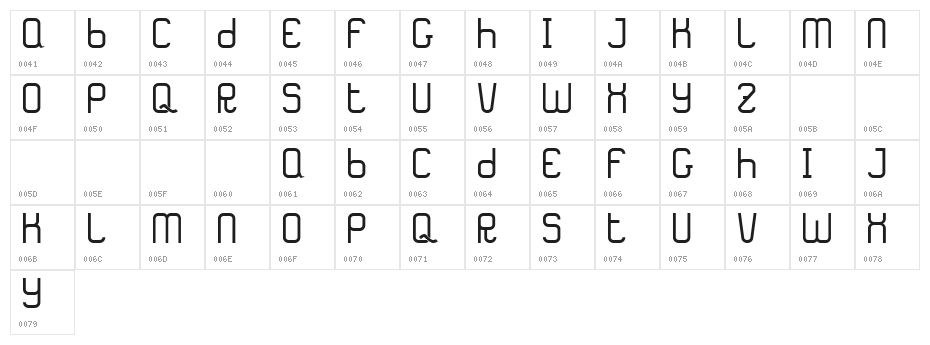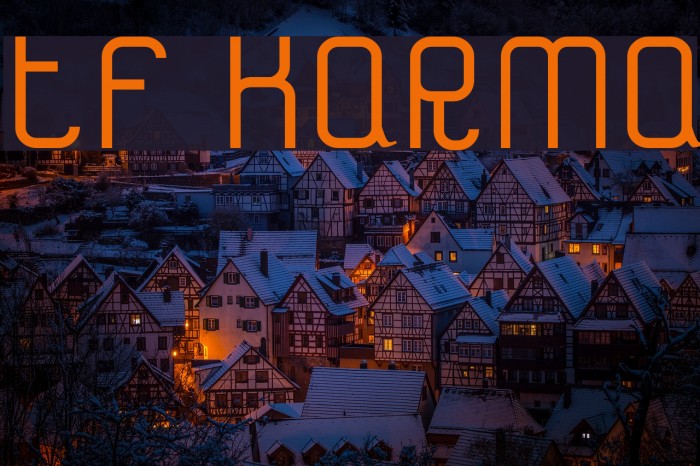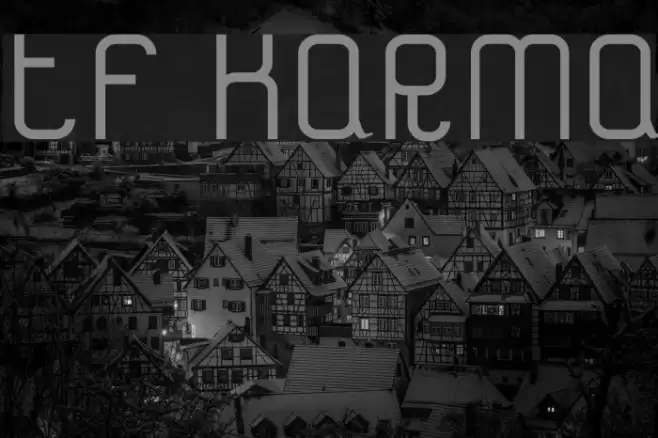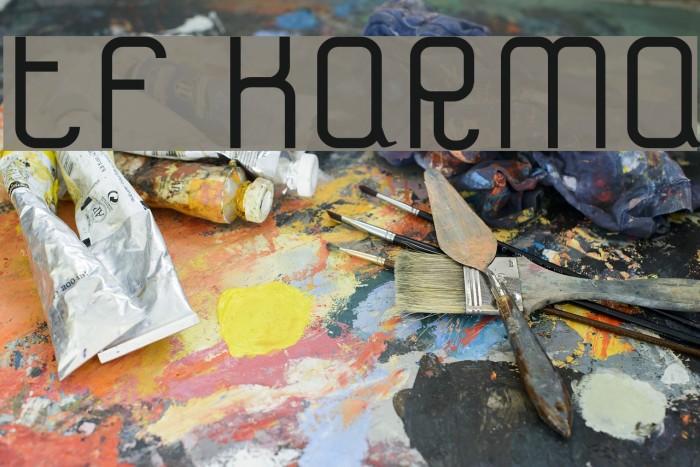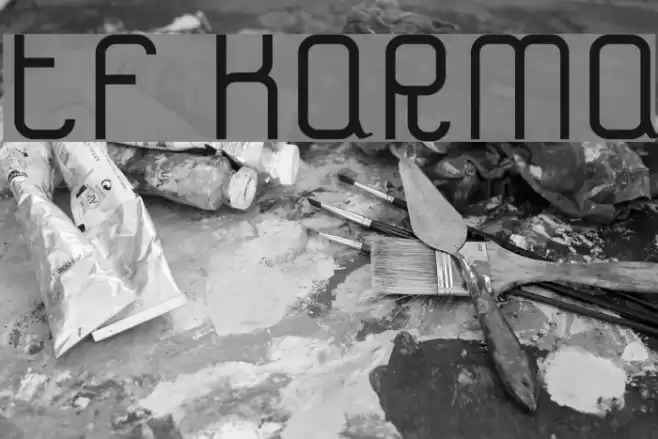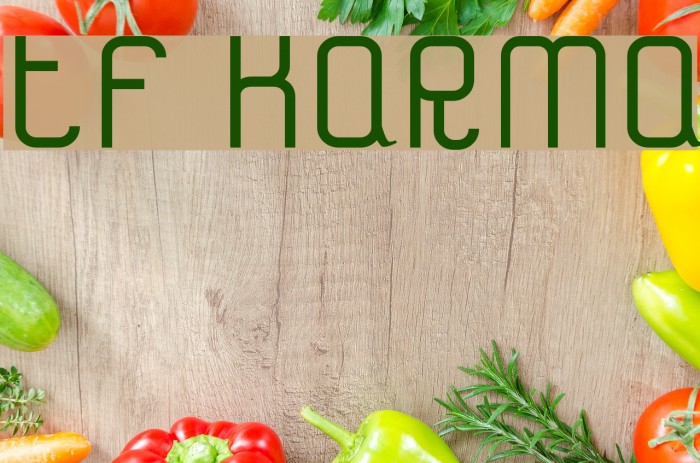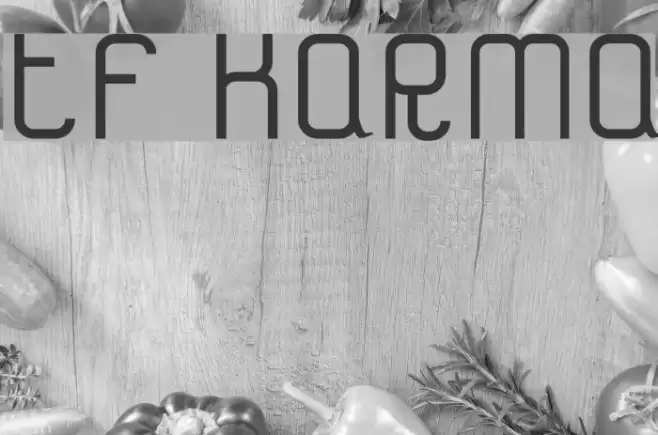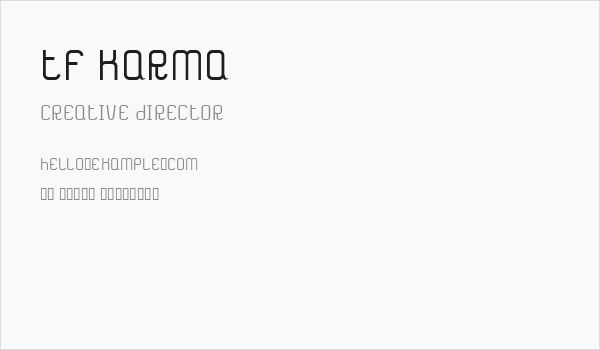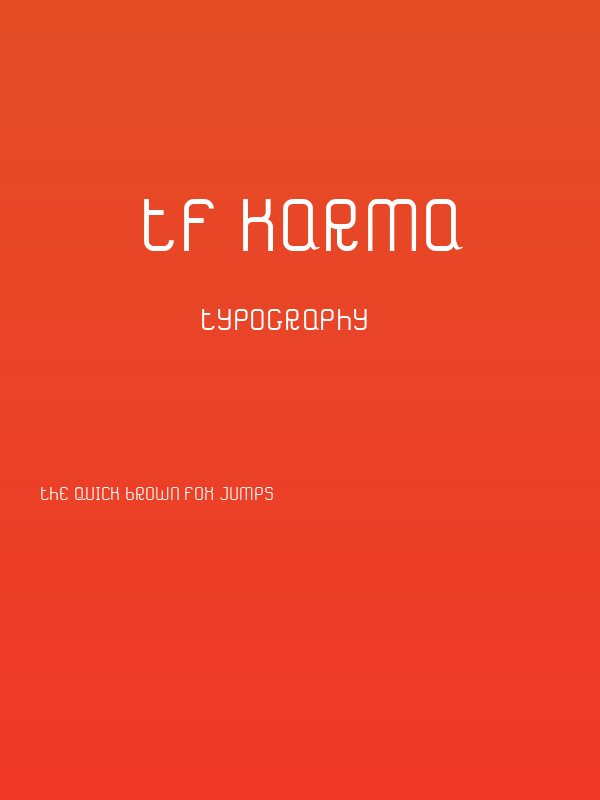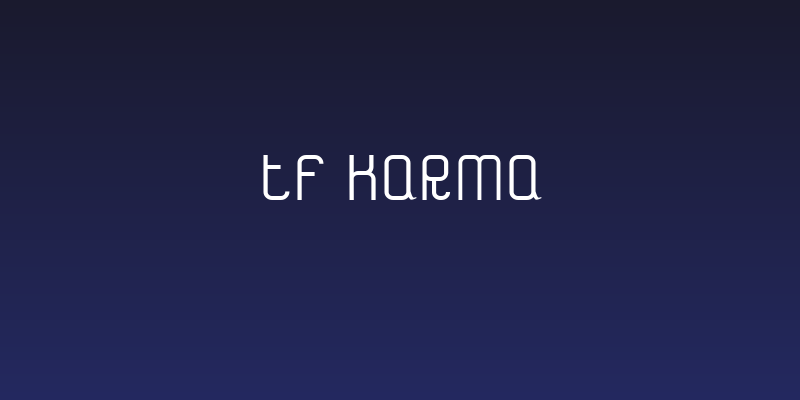
TF_Karma Font
TF_Karma Description
This font features a modern and geometric design with clean lines and rounded edges. The uppercase and lowercase letters maintain a consistent height, creating a uniform appearance. The characters are slightly condensed, giving a compact look. The numbers follow the same style, ensuring a cohesive design throughout. Special characters are designed to match the overall aesthetic, making them suitable for various applications. The font's simplicity and clarity make it versatile for both digital and print media.
| Proposed Projects | Ideal for tech branding, modern websites, app interfaces, and minimalist posters. |